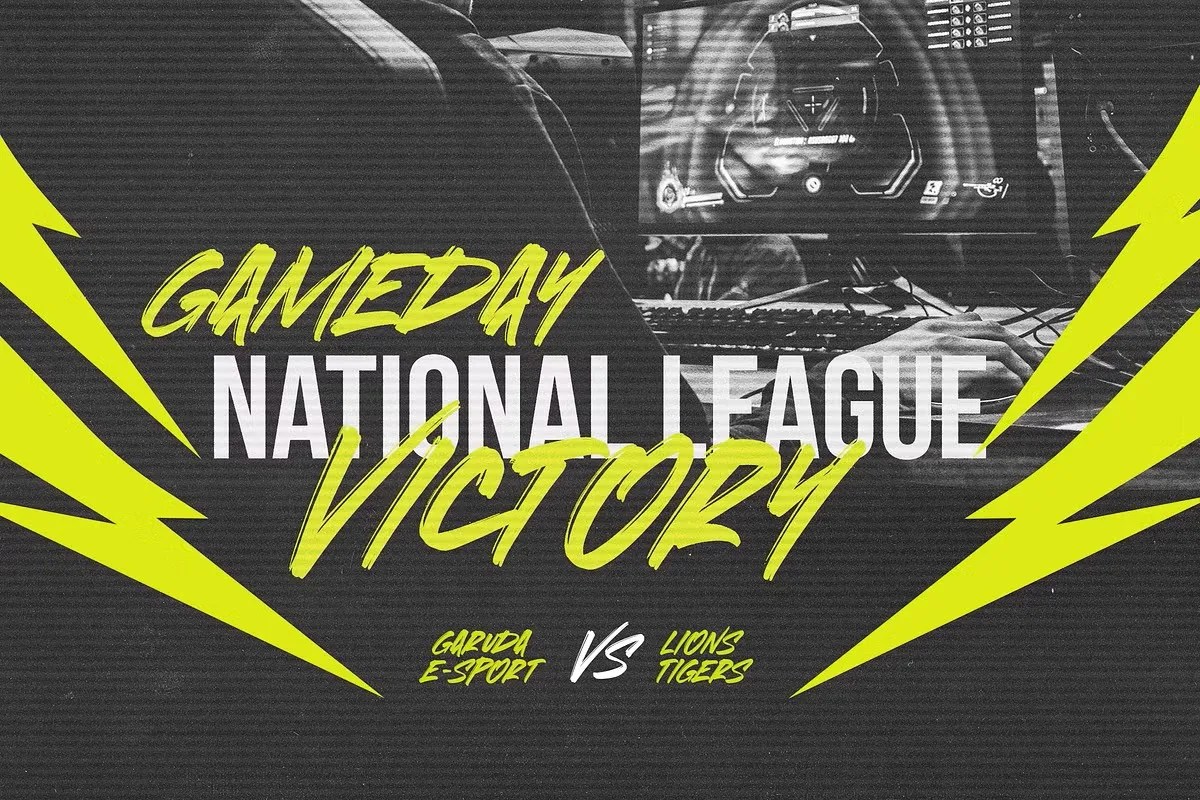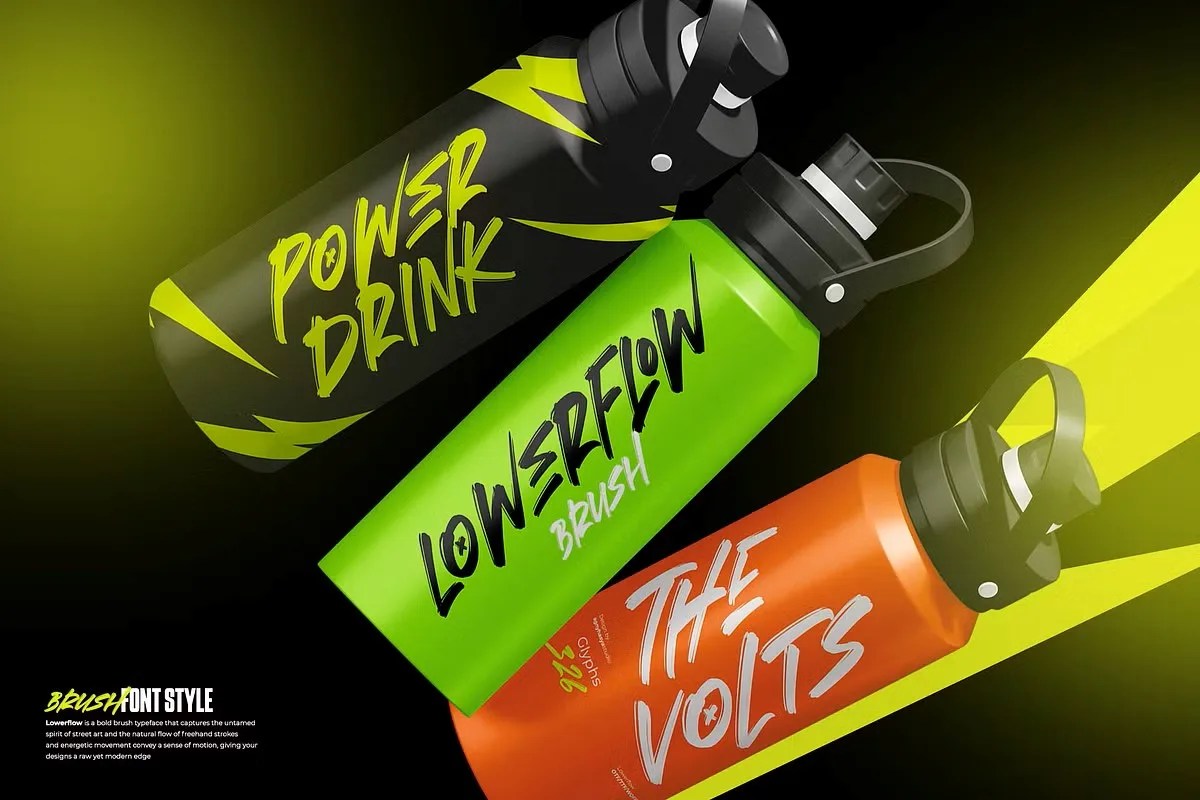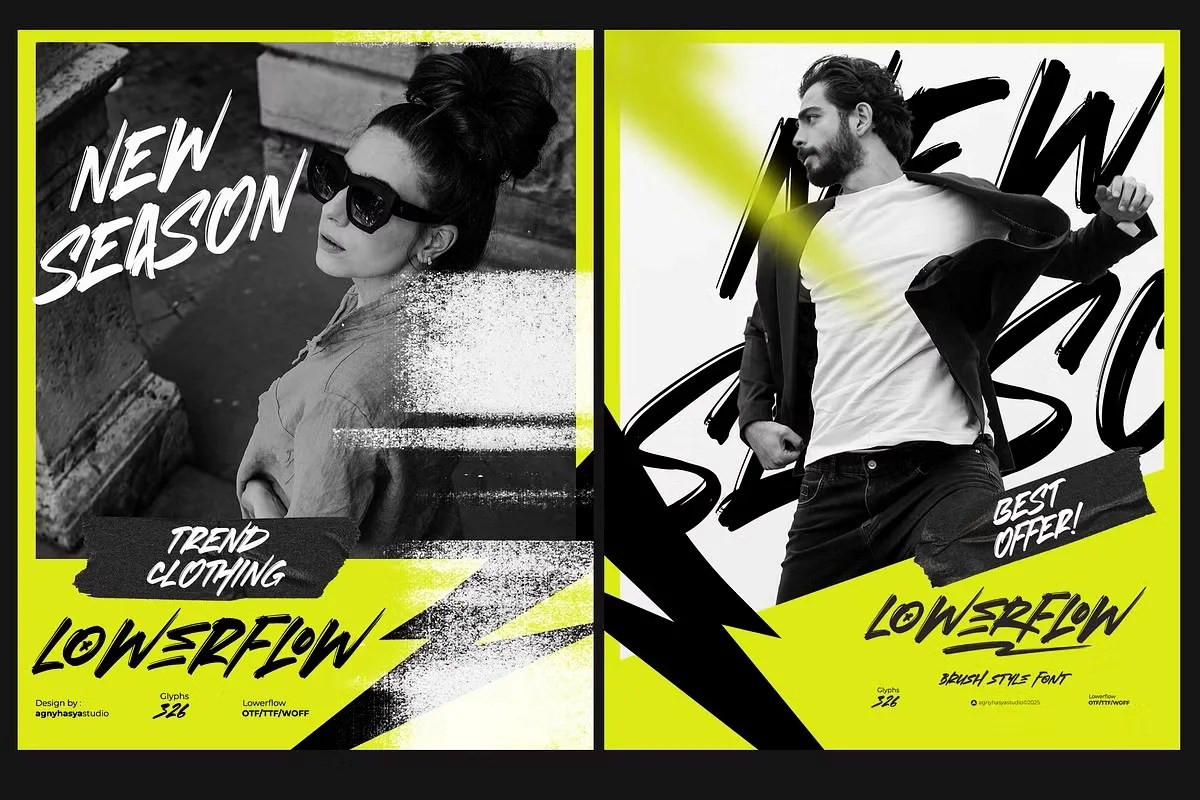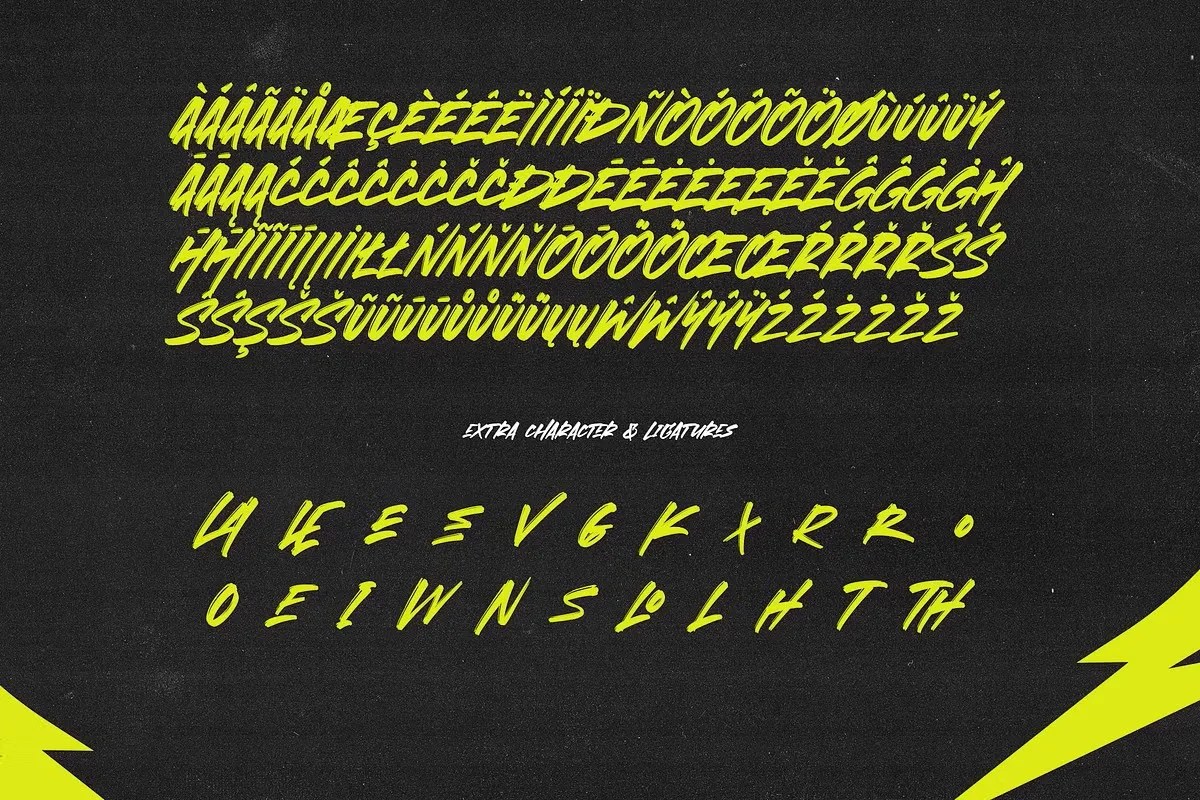
Lowerflow by Agnyhasyastudio. This is a truly unique display font with a smooth and organic character. It flows across the page with a gentle, artistic energy that captivates the eye. The font seems to defy rigid conventions. Instead, it gives your words a relaxed and expressive quality. Lowerflow is perfect for creative projects that need a soft, unconventional, and memorable touch.
This font is a natural choice for brands and projects with a mindful or artistic focus. Specifically, it is a wonderful option for a wellness brand’s logo or a yoga studio’s marketing materials. It perfectly communicates a message of tranquility and flow. Furthermore, this unique display font is excellent for social media graphics, especially for artists, writers, and musicians. It can transform a simple post into an understated piece of art. Use it for event posters, book covers, or packaging that requires a gentle yet distinct personality.
• Smooth and unique display style
• Features organic, flowing letterforms
• Ideal for wellness, art, and creative branding
• Provides a gentle and expressive feel
Lowerflow